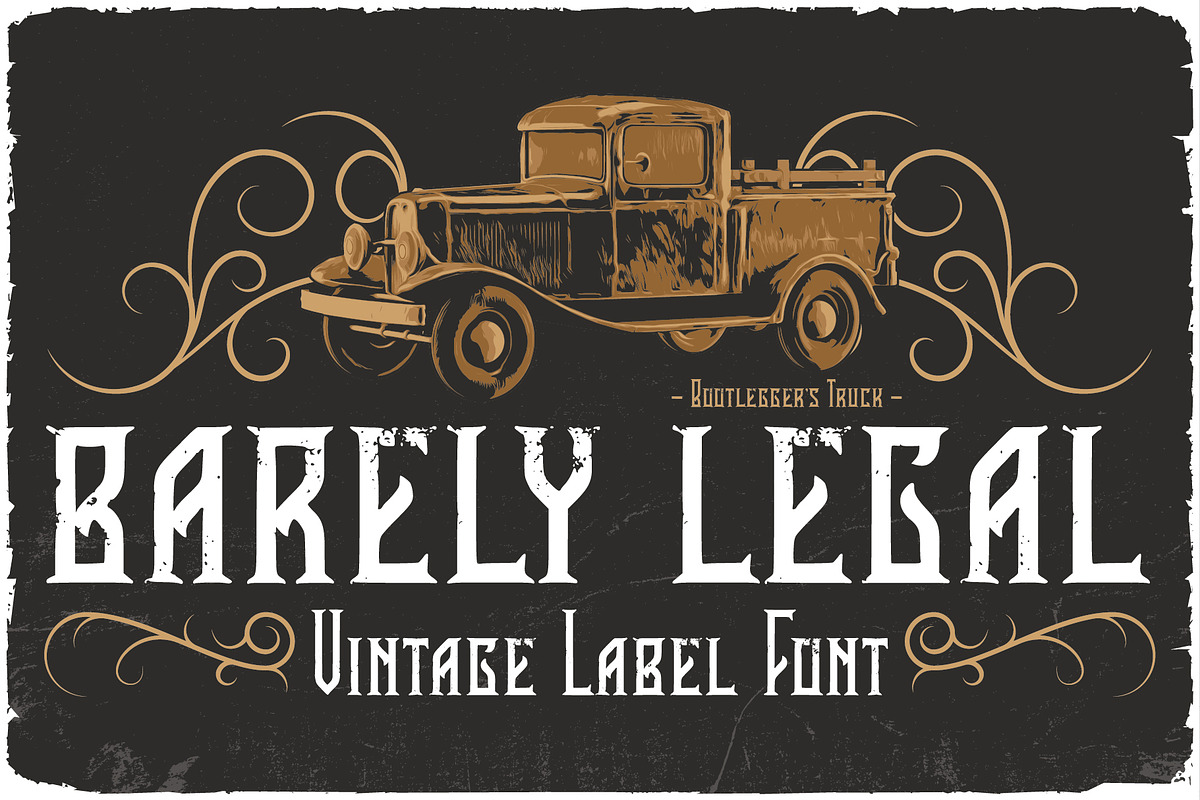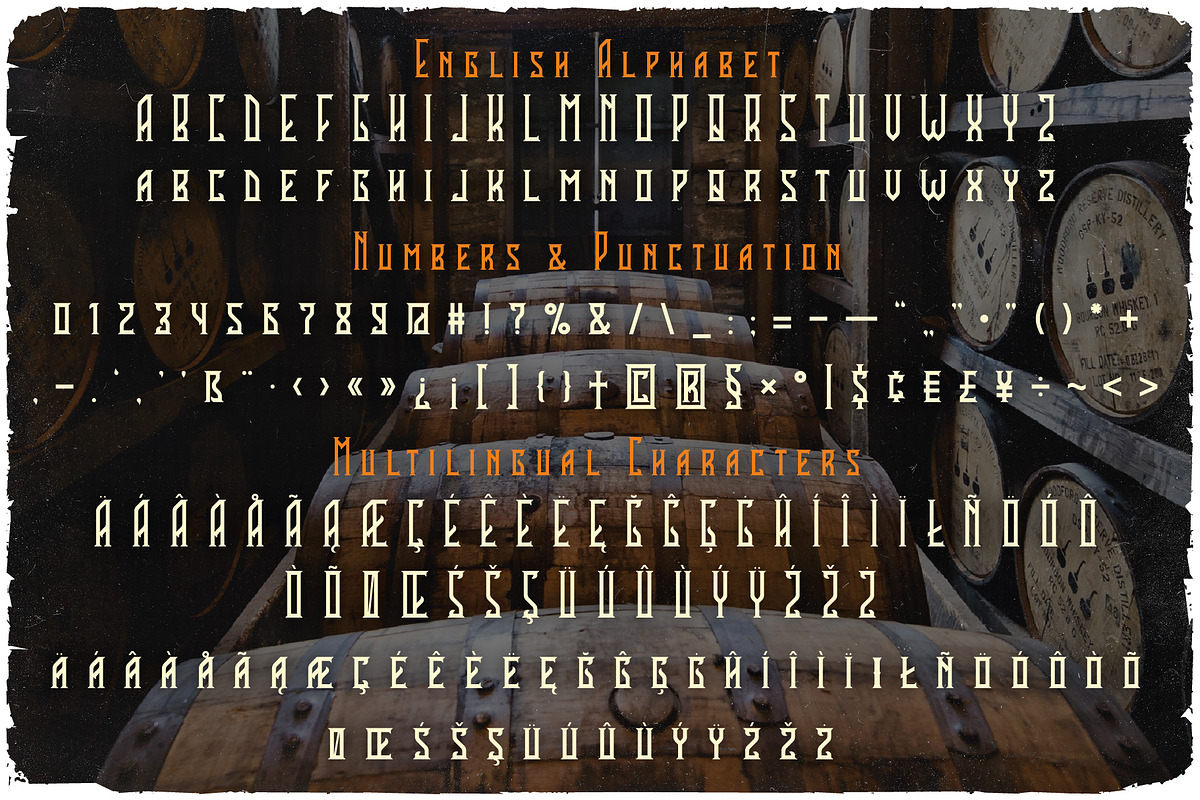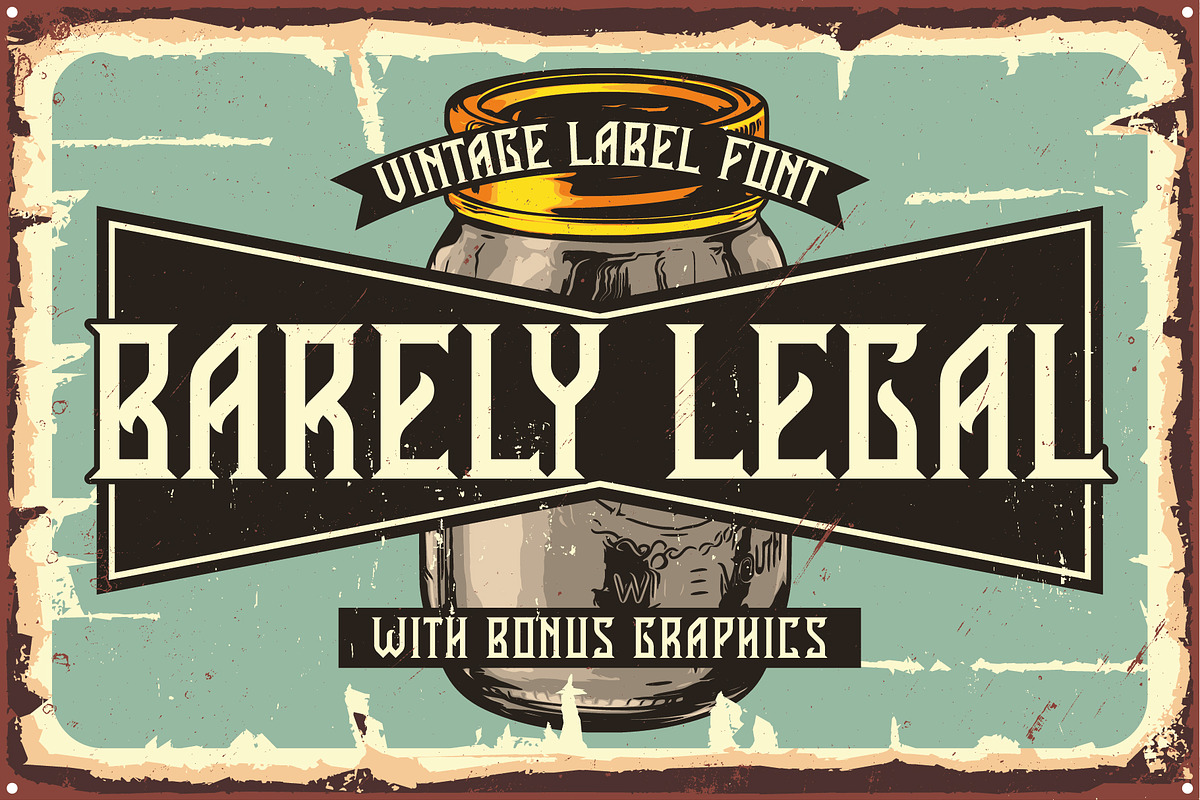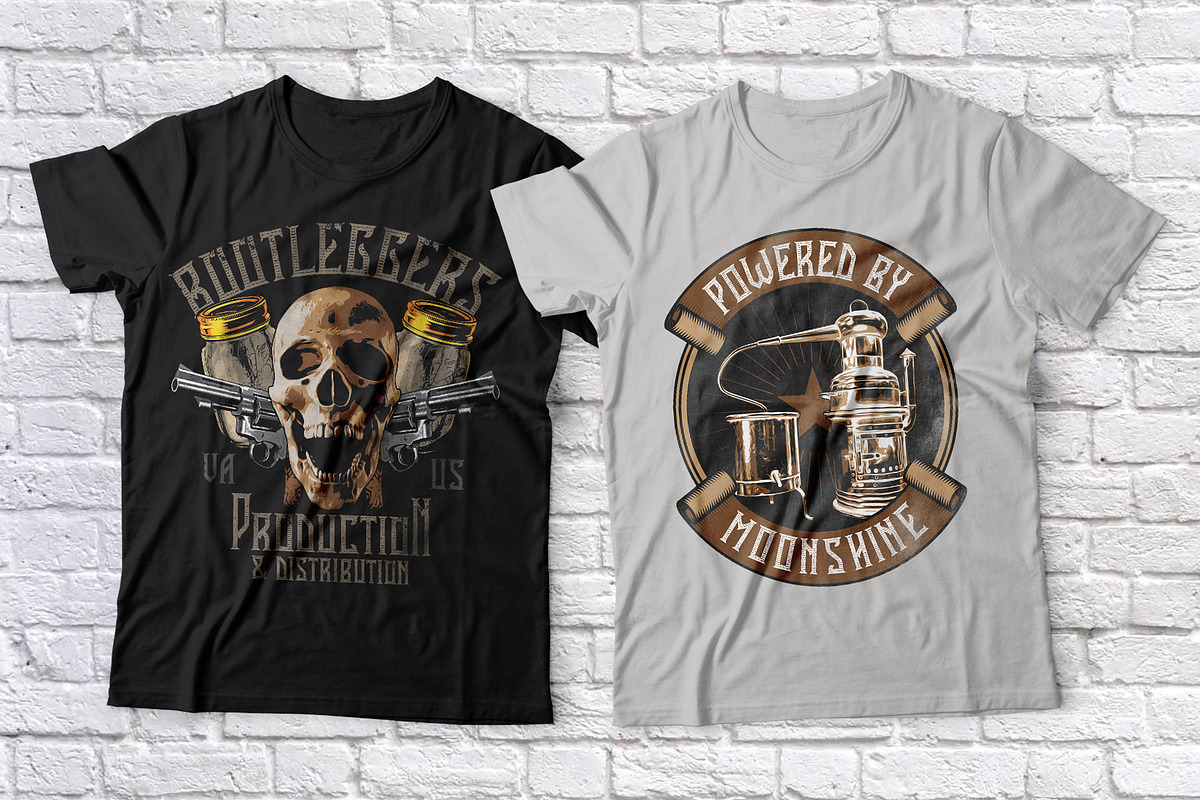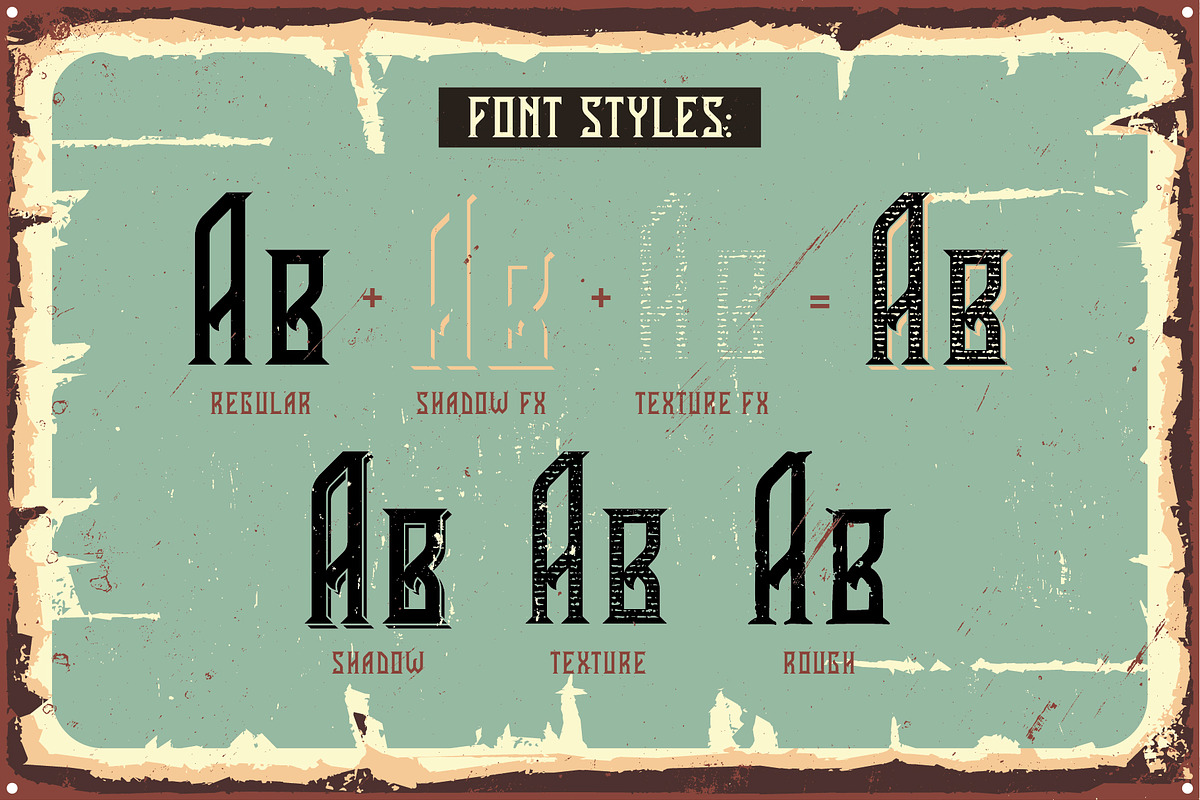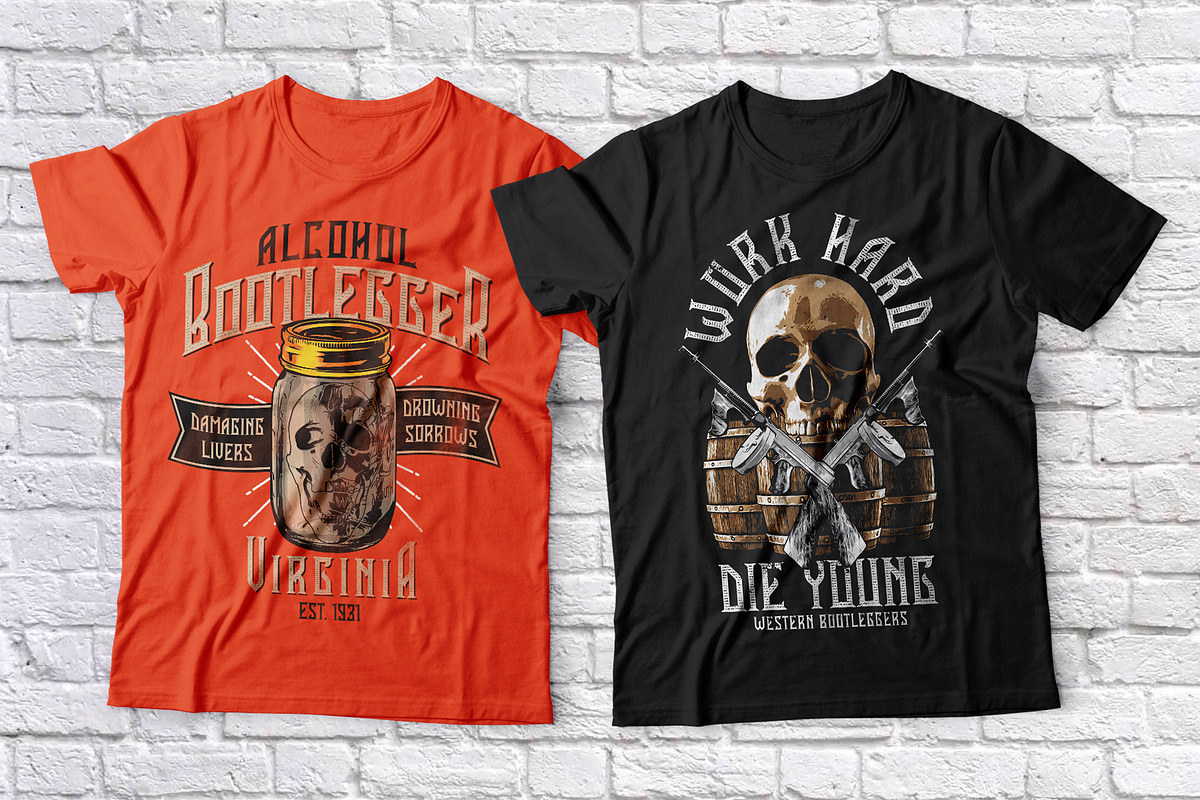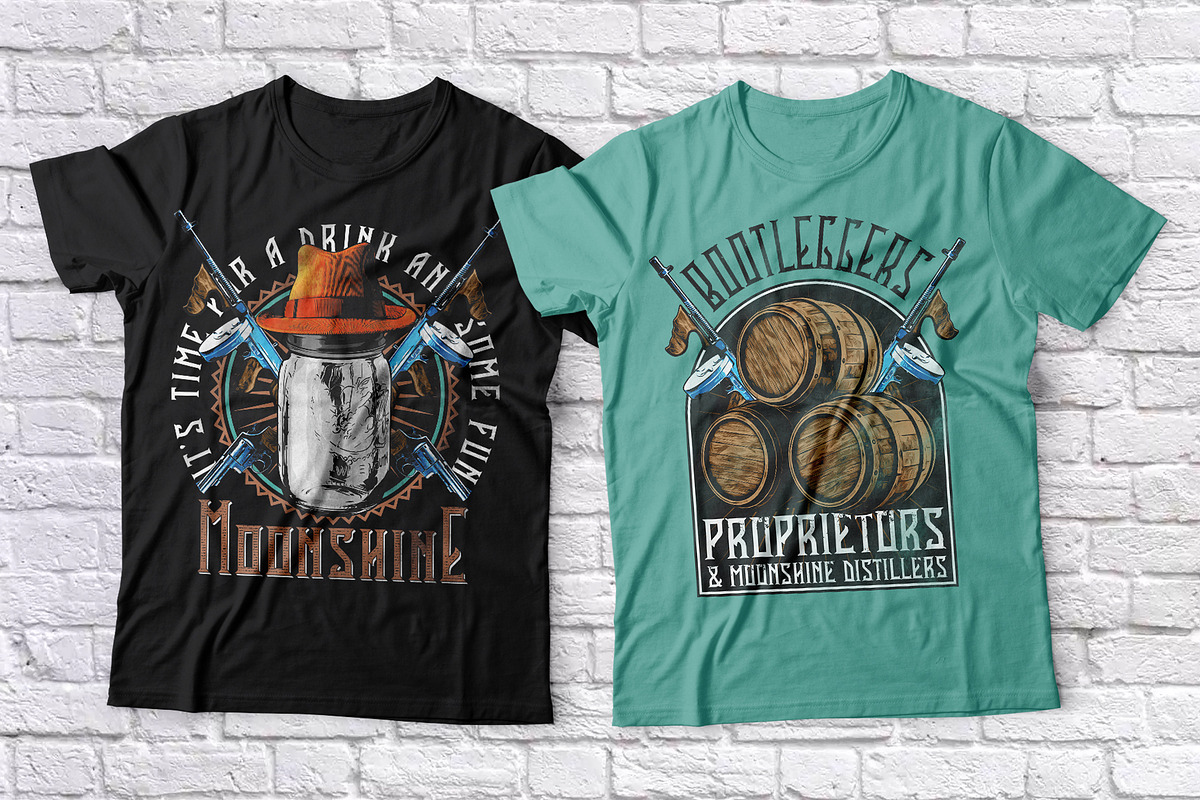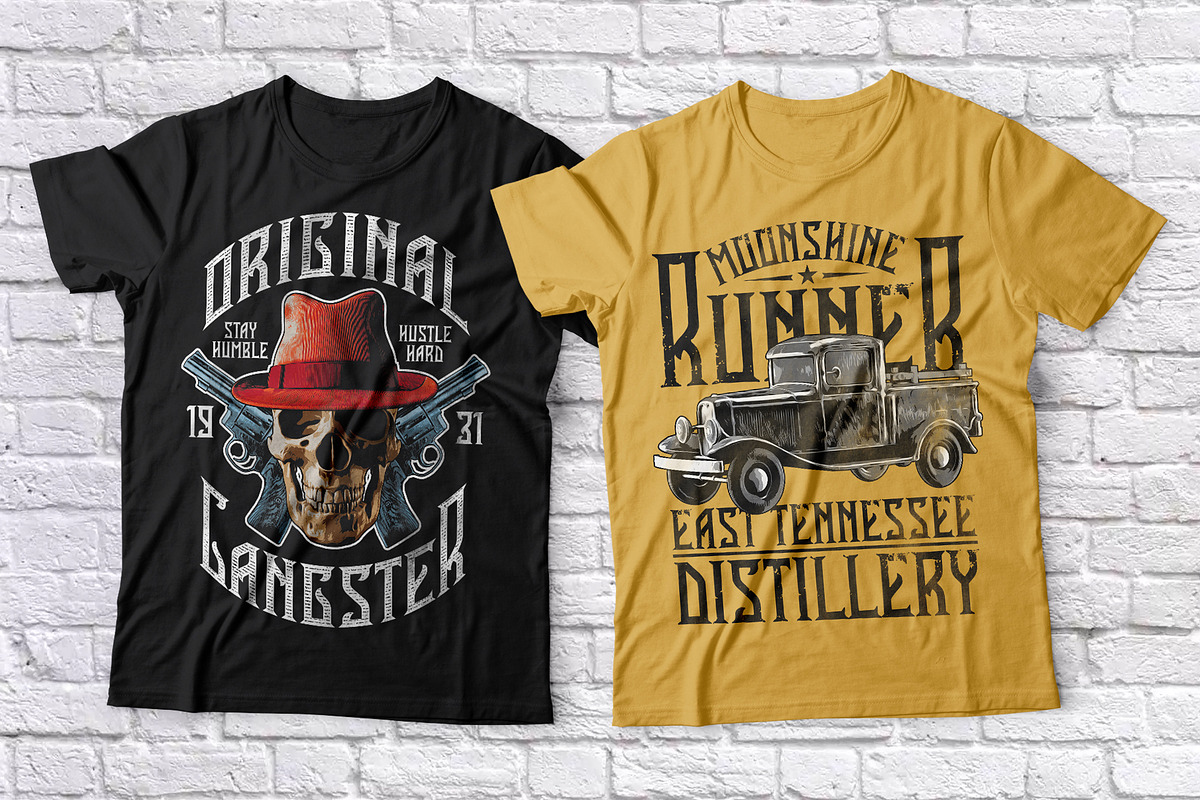
Barely Legal
Introducing a vintage font named Barely Legal. This font was inspired by bootleggers in the 1930s. All available characters you can see at the screenshots. This font has six styles: Regular, Shadow, Texture, Rough, Shadow FX and Texture FX. This font will look good on any retro and mafia styled designs like a poster, T-shirt, label, logo, etc.
- A lot of additional symbols and multilingual support